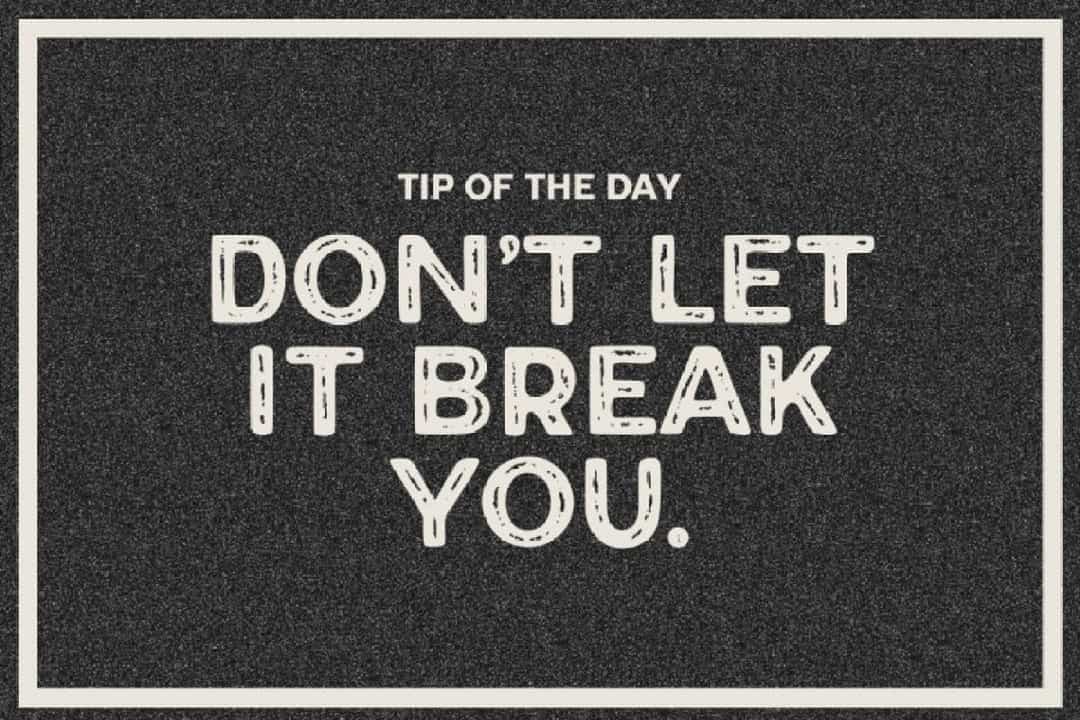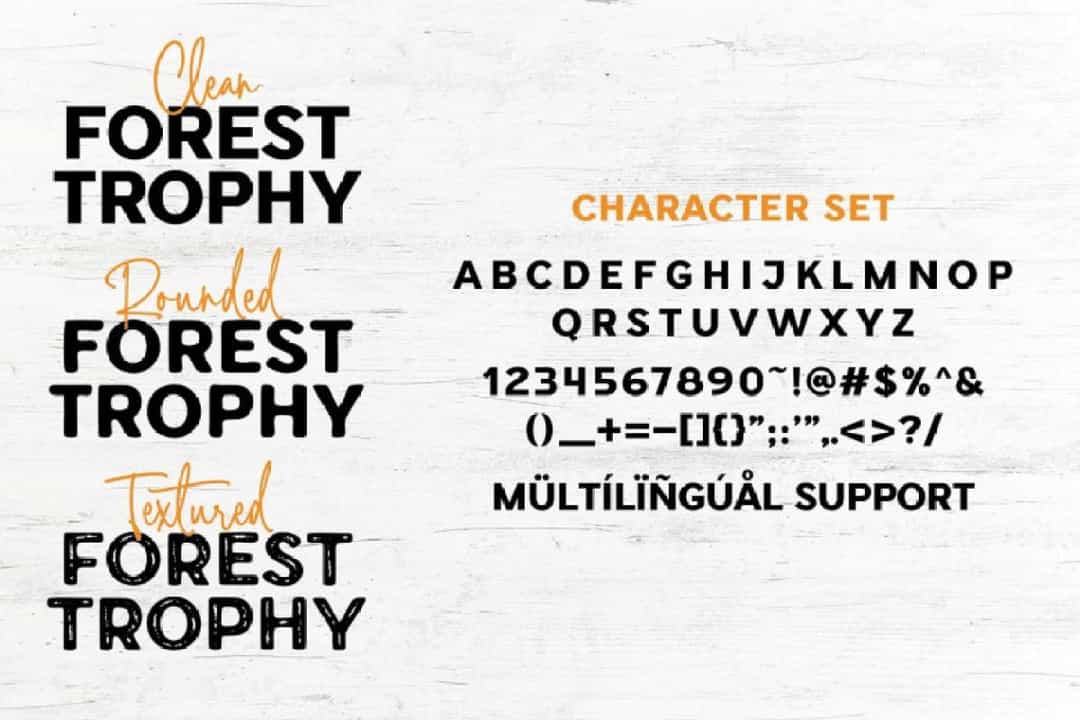
Discover Forest Trophy Font, part of the Sans Serif Display collection—a versatile and unique font perfect for adding a personal touch to your projects. Download it for free and enjoy crafting designs with style, from invitations to social media posts. This font is available exclusively for personal use, giving you the freedom to create without limits. Unlock your creativity with Forest Trophy Font today!
Forest Trophy – Classic Display Font features an authentic vintage aesthetic, making it the ideal font choice for use on outdoor merchandise, clothing and event posters, films and more.